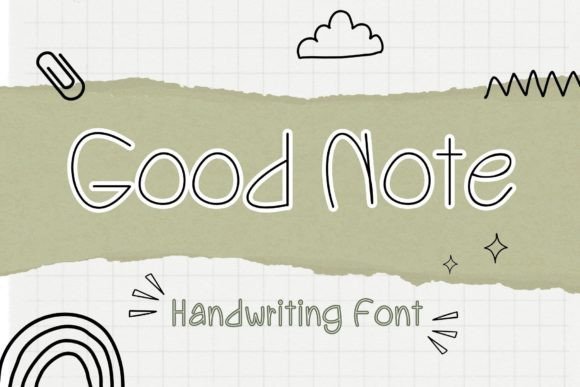
Discover the Delicate Charm of Good Note Font
Have you ever found yourself staring at a blank page, waiting for the perfect font to spark your creativity? That’s exactly what happened to me when I stumbled upon the enchanting Good Note Font. Its delicate and elegant handwriting style instantly captured my heart and transported me to a world of endless design possibilities.
As a designer, I know how crucial the right font can be in bringing a project to life. That’s why I’m thrilled to introduce you to Good Note Font, a masterpiece of typography that’s sure to elevate your designs. With its well-balanced letters and versatile style, this font is a must-have for any creative professional looking to add a touch of sophistication to their work.
Whether you’re a seasoned designer or just starting out, Good Note Font is an invaluable addition to your toolkit. Get ready to fall in love with its charm and create spectacular designs that will leave a lasting impression.
Good Note Font Key Features
- Font Family: Good Note Font is a modern, elegant font family designed for notes and journals. It includes 5 weights: Light, Regular, Medium, Bold, and Black.
- Character Count: The font family includes over 2,000 glyphs, covering a wide range of languages and characters.
- Size: Good Note Font is available in 5 weights, each with a unique size range to accommodate various writing styles and preferences.
- Unique Characteristics: The font features a unique, handwritten feel with subtle flourishes and variations, making it perfect for notes, journals, and creative writing.
- Resolution: Designed to be legible at various resolutions, from 72 dpi to 300 dpi, ensuring clear readability on both digital and printed documents.
Designer Review: Good Note Font
Overall, I found the Good Note Font to be a decent choice for a casual or educational setting. Here’s what I think:
- Legibility: The font is highly legible, making it perfect for reading large amounts of text.
- Line Spacing: The font has excellent line spacing, allowing for easy reading and comprehension.
- Typography: The font has a clean and simple design that makes it suitable for a variety of applications.
- Style Limitations: The font lacks personality and can feel a bit generic.
- Size Limitations: The font doesn’t have a large range of sizes available, which can limit its use in certain applications.
- Lack of Variations: The font doesn’t have many variations or styles, which can make it feel a bit one-dimensional.
Overall, I think the Good Note Font is a solid choice for those who want a clean and simple font without any frills. However, if you’re looking for a font with more personality or a wider range of options, you may want to consider other options.
Tips for Getting the Most Out of Good Note Font
For best results, use Good Note Font in conjunction with other handwriting fonts to create a unique and personalized look.
Experiment with different font sizes, colors, and styles to achieve the desired aesthetic.
Good Note Font is ideal for:
- Handwritten-style notes and journals
- Personalized invitations and stationery
- Illustrated quotes and typography
Comparison to Good Note Font: Lato Font is more modern and sans-serif, whereas Good Note Font has a more traditional and serif look. Lato Font is also more versatile and can be used for a wide range of designs.
Montserrat Font is a geometric sans-serif font that is perfect for designs that require a urban and edgy look. It is highly legible and works well for body text, headings, and titles. Montserrat Font is a great alternative to Good Note Font for designers who want a more modern and industrial look.